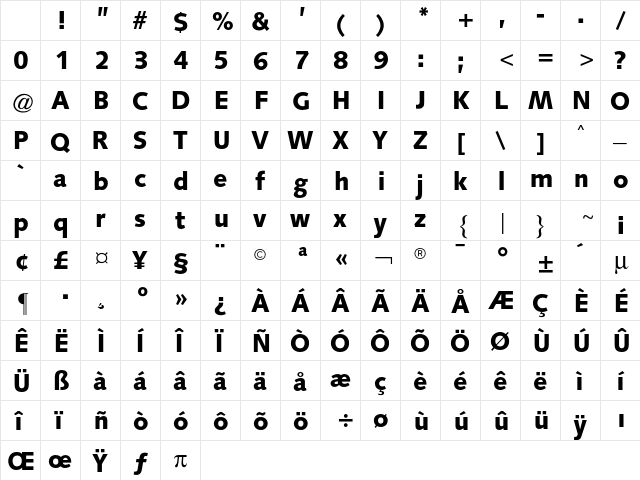
Symphony CG Black is a composed and adaptable typeface that performs quietly and consistently across a wide range of design contexts.
Pro Tip: Use Symphony CG Black in both headline and body roles to test its range before committing to a single application.